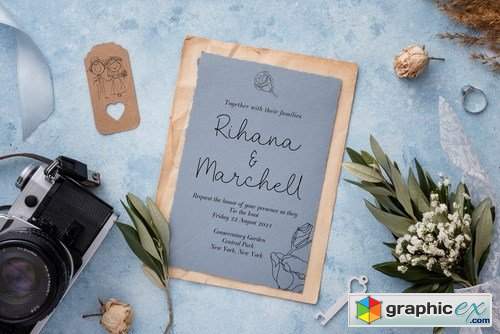
Planted Matters
Introducing our new font, elegant handwritten font with quick a signature style. This font great to use for logos, inspirational quotes, t-shirt graphics, typography art, apparel, labels, posters, business cards, stylized wedding invitations, prints, signs, book cover designs headlines, titles, etc.